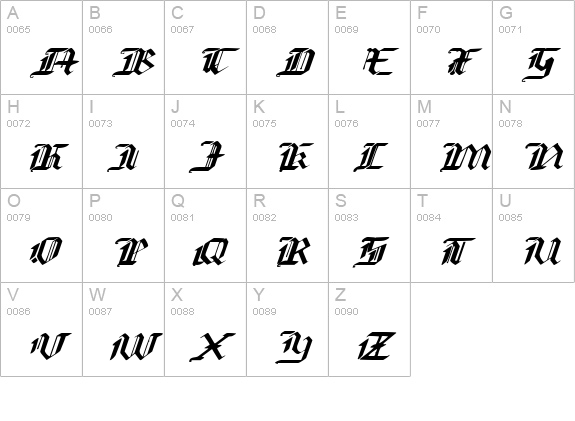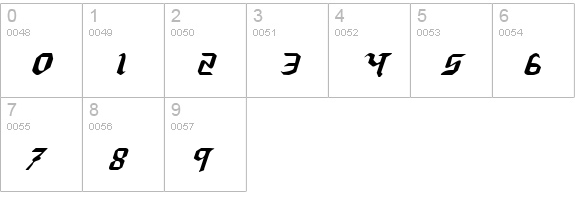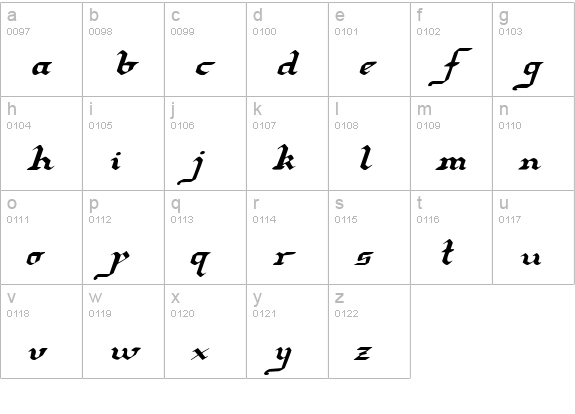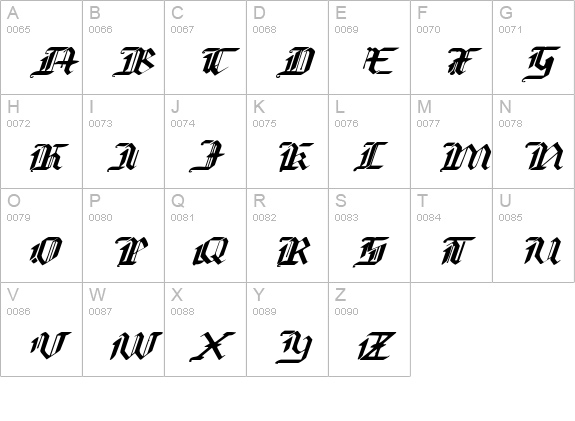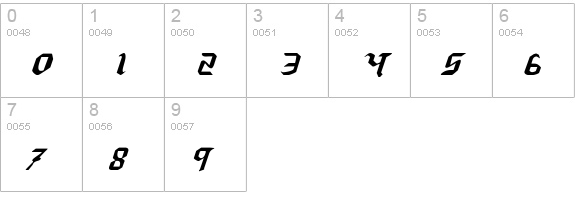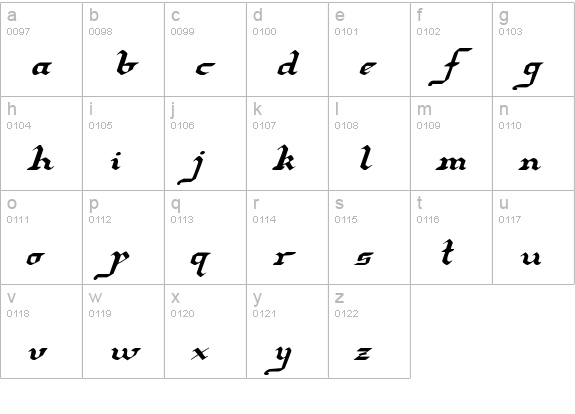
Redcoat Expanded Italic is a distinctive, extended-width, italic variant in the Redcoat typeface family \xE2\x80\x94 well suited to design and typography projects.
Redcoat Expanded Italic is a stylish and elegant font that exudes sophistication and charm. Its sleek and elongated design adds a touch of grace to any project, making it perfect for creating eye-catching headlines or adding a touch of class to your designs. The italicized style of Redcoat Expanded gives it a sense of movement and fluidity, making it ideal for conveying a sense of elegance and refinement. What makes Redcoat Expanded Italic even more appealing is that it is available for free download at FontsMarket.com. This means you can easily access this beautiful font and incorporate it into your projects without any cost. Whether you're working on a branding project, a website design, or any other creative endeavor, Redcoat Expanded Italic is sure to elevate your work with its sophisticated and polished appearance. Download this stunning font today and add a touch of elegance to your designs!